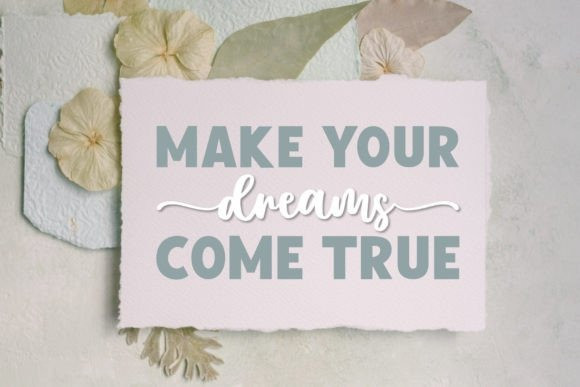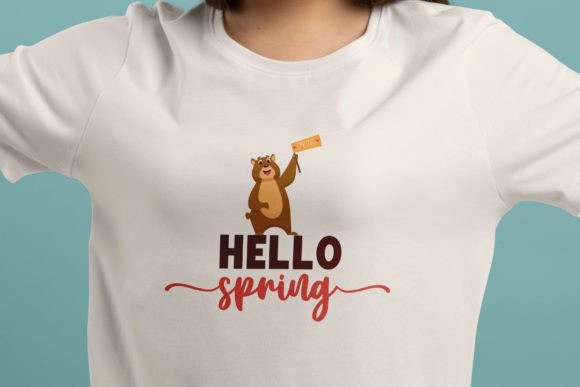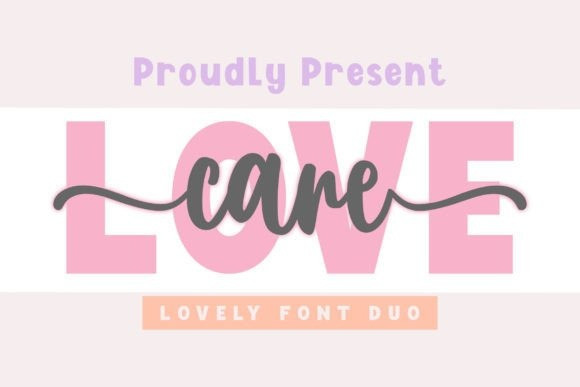
Love Care Font Duo
Love Care Font Duo is a simple and sweet handwritten font duo that will make your design project more lovely and adorable. This font duo features a combination of script and playful sans serif fonts, each with various ligatures and alternates to give you more options and flexibility.
Whether you need to create logos, posters, flyers, banners, or social media graphics, Love Care will add a touch of cuteness and charm to your designs. Download Love Care today and enjoy this simple handwritten font duo.